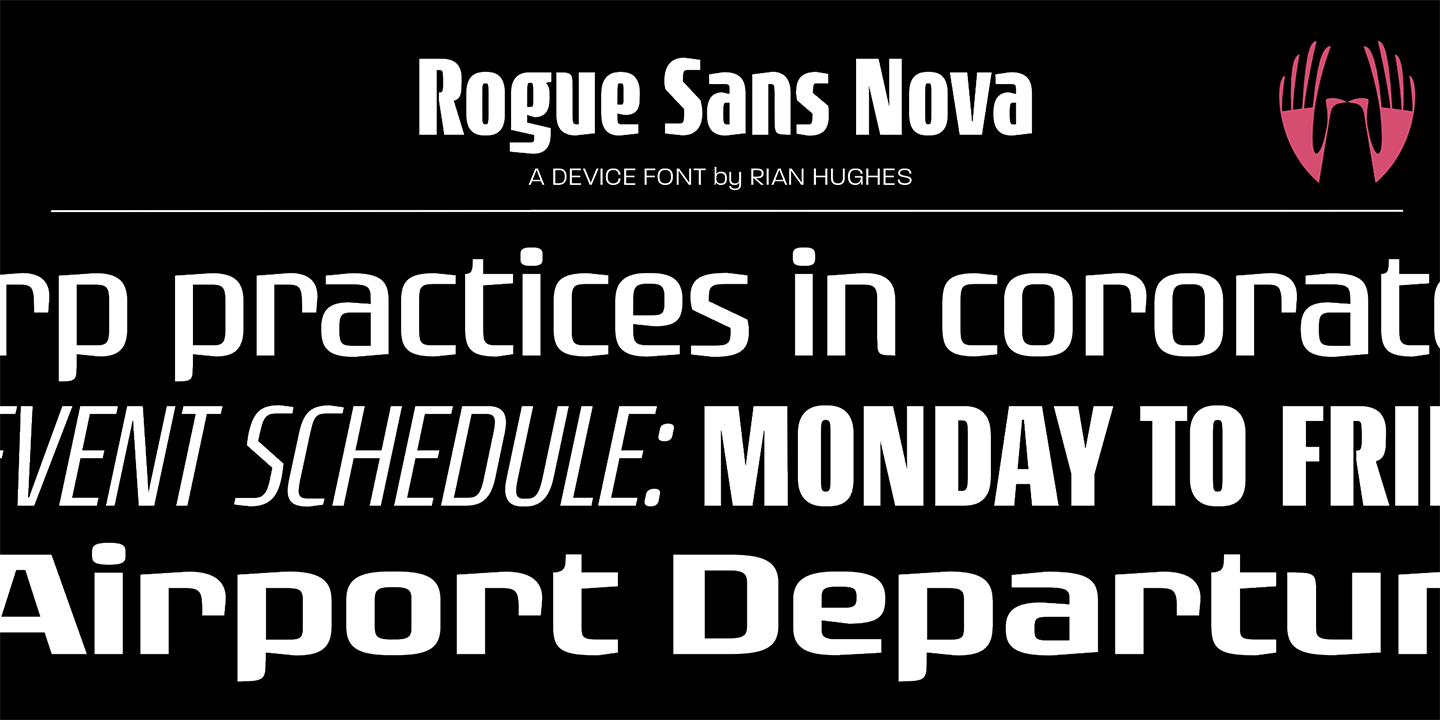
Please note, you must purchase this font for commercial use. You can download Rogue Sans Nova Font Free Download for testing purposes and explore its clean, modern design. Rogue Sans Nova Font is perfect for contemporary branding, web design, corporate materials, and any project that requires a bold, professional look.
With its sharp lines and geometric structure, Rogue Sans Nova Font provides a polished, modern appearance to your designs. It’s ideal for creating clean, minimalist logos, headlines, and digital content, offering both legibility and style.
Rogue Sans Nova Font Free Download supports multilingual characters, making it versatile for global projects. Its legible design ensures readability across both print and digital formats, making it a great choice for various creative applications.